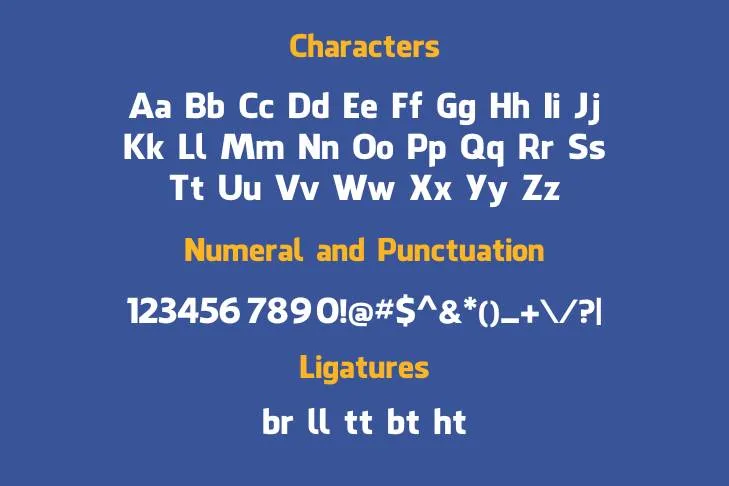
Presenting to you a font created specifically for Facebook, called the Facebook logo font. It was meticulously crafted by Mike Buzzard and was well-received by the owner of Facebook. Despite numerous changes over the years, the overall appearance of the typeface has remained constant.
The Facebook logo font is 95% similar to the Klavika font however, the font seems to be broadly applicable to complement a variety of fonts. It has endured evaluation for years because of its simple, clear, and familiar style which is readable by every sort of gadget.
Where to Use Facebook Font?
Classical typefaces are being slowly replaced in the past few years in preference to more contemporary and simple typefaces in digital media. Several artists, programmers, and entrepreneurs prefer this excellent typeface for branding, designing, and other purposes. Its usage has significantly increased.
This fabulous typeface can be optimized for a variety of projects including marketing materials, packaging, artwork, advertising, and editorial designs. This amazing typeface is also applicable for publication purposes like menus or periodicals, where legibility is an important factor.
Unique Features of Facebook Font
A contemporary, attractive, and stunning typeface known as Klavika font is used to design the logo of Facebook. It belongs to the Sans-serif typeface family and it was published in the year 2010 by Monotype Design Studio. When in need of a font with matching style and characters, look no further than the rakesly font as it perfectly aligns with the font mentioned.
The designer emphasized the clarity, legibility, and simplicity of the font. Over the span, some modifications have been made to this typeface as the letters in the current Facebook logo have slightly different kernings and angles. It has a clean and clear texture which reduces blurred vision and is also useful for those who have an eyesight issue.
Name | Facebook Font |
Designer | Mike Buzzard |
Style | Sans-serif |
Pairing Suggestion for Facebook Font
This astounding and bold typeface can be combined with other typefaces of various categories to achieve sensational results. You can pair it with the Futura, Bodoni, or Verdana font if you are planning to design a logo for a fashion or makeup brand.
It can also go well with bold Sans-serif typefaces like Helvetica Bold, Bebal Bold, or SF Pro Display font to create striking and smooth headlines, titles or logos for vehicle companies.
More Weights and Styles in Facebook Font Family
- Facebook Regular
- Facebook Bold
- Facebook Italic
What font is actually used to design the logo of Facebook font?
The Facebook logo font is 95% similar to the Klavika font however, the font seems to be broadly applicable to complement a variety of fonts. It has endured evaluation for years because of its simple, clear and familiar style which is readable by every sort of gadget.